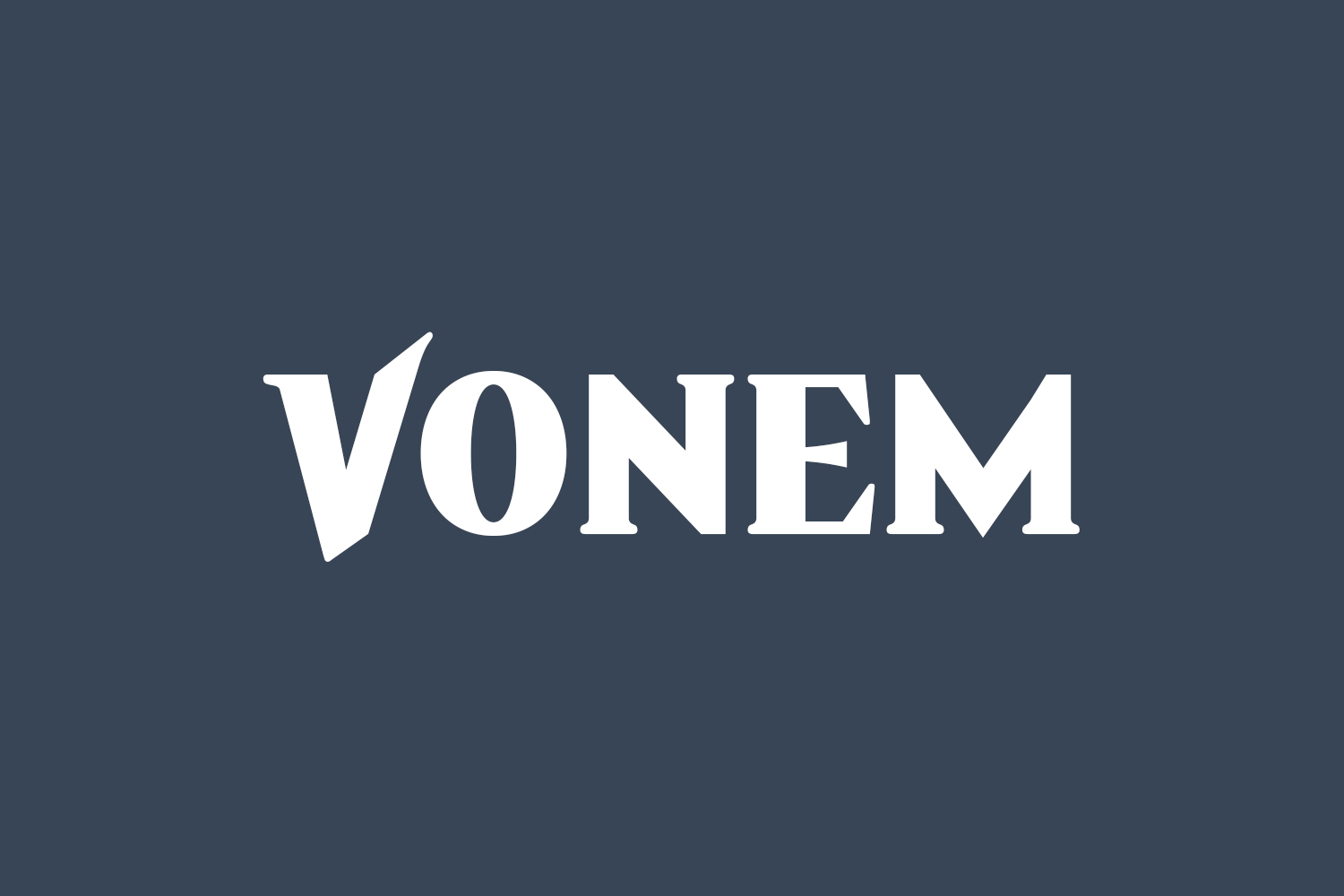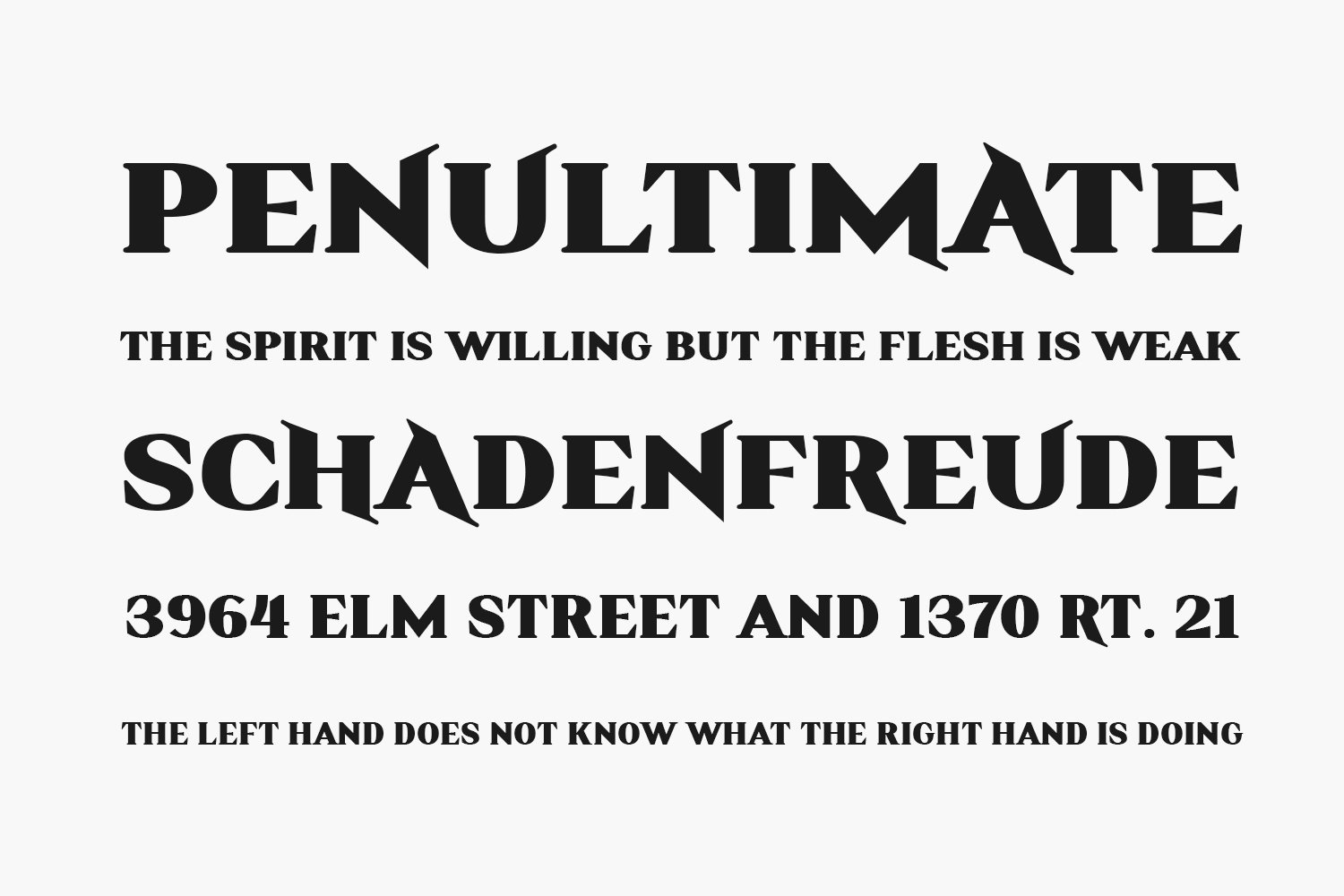
Vonem Free Font is a stylish and modern typeface that is perfect for a variety of design projects. With its unique and eye-catching letterforms, Vonem is sure to grab the attention of your audience. This font is completely free and easy to use, making it a great choice for both personal and commercial use. Whether you’re designing a website, creating marketing materials, or crafting social media posts, display Vonem is a versatile font that can help you create a standout look for your brand.
Designed by Faqih Fawaji